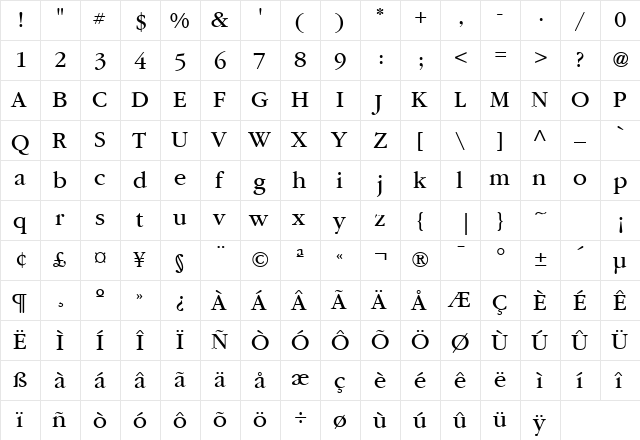
GarryMondrian4 BookSH Font Preview
GarryMondrian4 BookSH
GarryMondrian4 BookSH Font Details
Design Context for GarryMondrian4 Typeface
GarryMondrian4 offers clean, dependable letterforms without strong stylistic allegiance, making it a practical choice for designers who need flexibility.